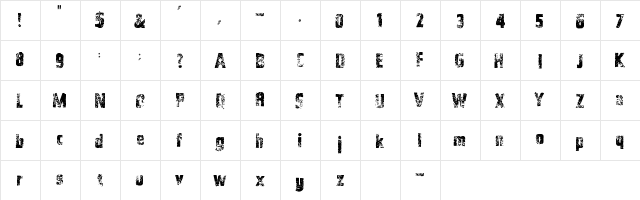
2Peas Composition 2Peas Composition Font Preview
2Peas Composition 2Peas Composition
Design Context for 2Peas Composition Typeface
2Peas Composition is a composed and adaptable typeface that performs quietly and consistently across a wide range of design contexts.